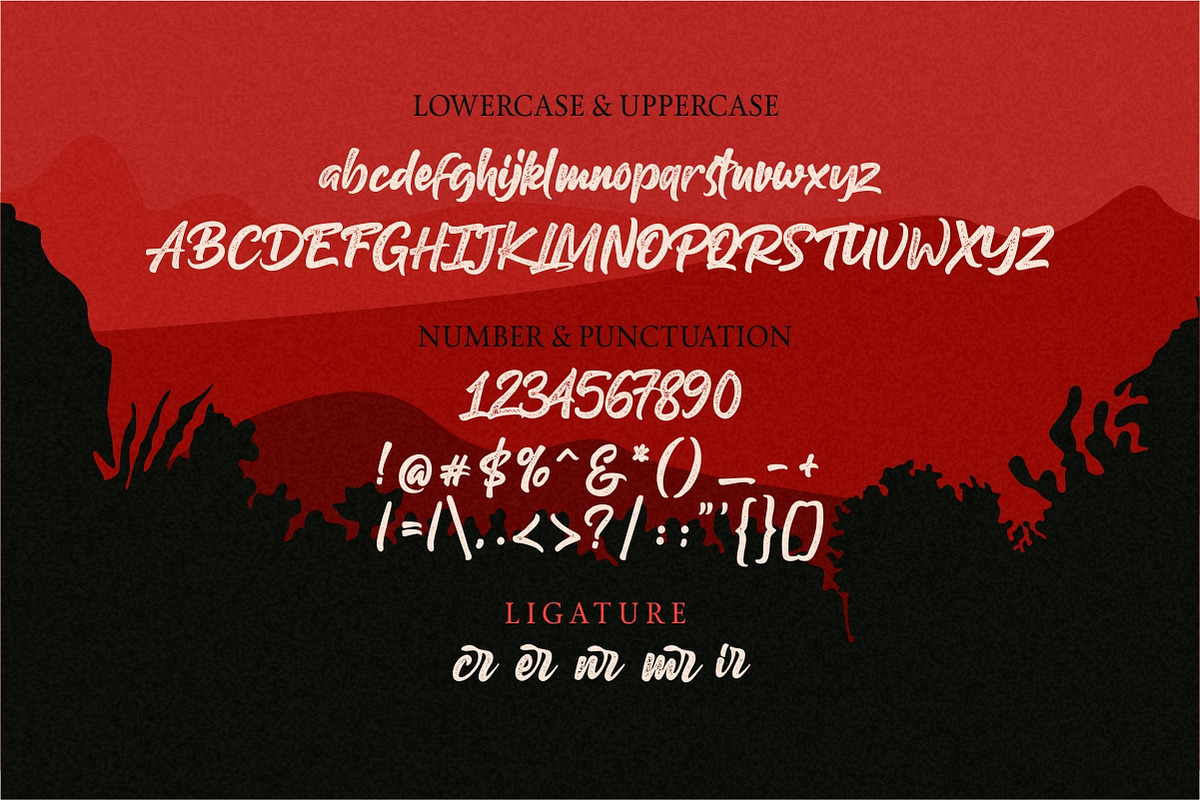
Gilberto a Stylish Brush
Gilberto! A letterpress script, dapper handwritten font with a personal charm. With letterpress effect and a bold style, Gilberto is perfect for branding projects, title ,quote, product packaging - or simply as a stylish text overlay to any background image.
- ligature